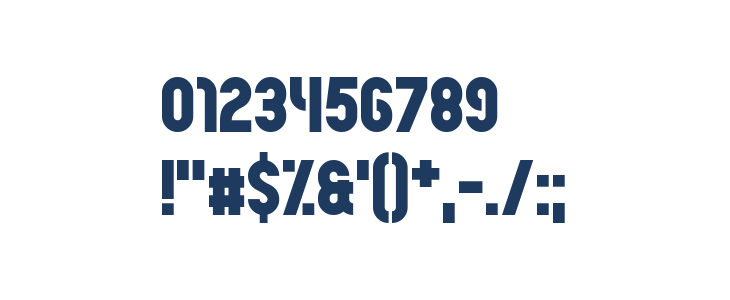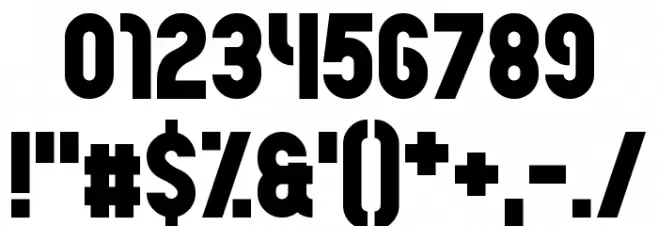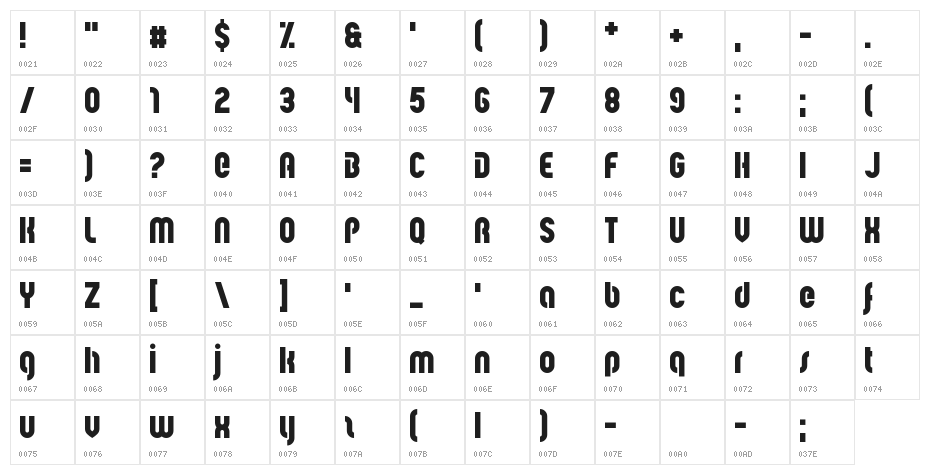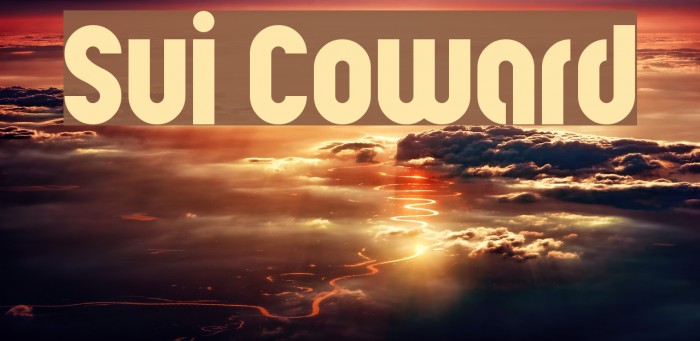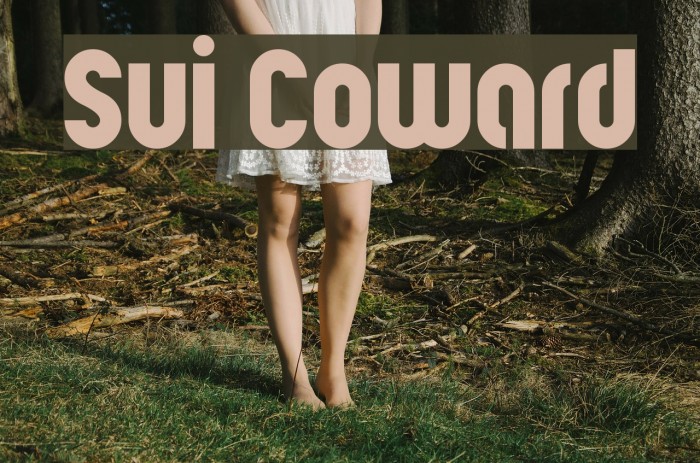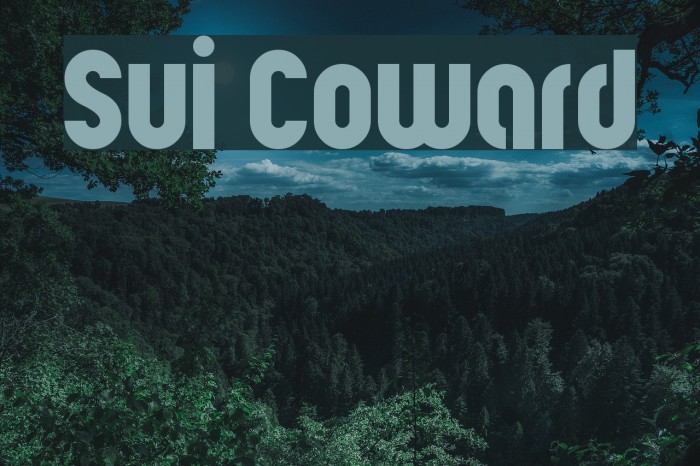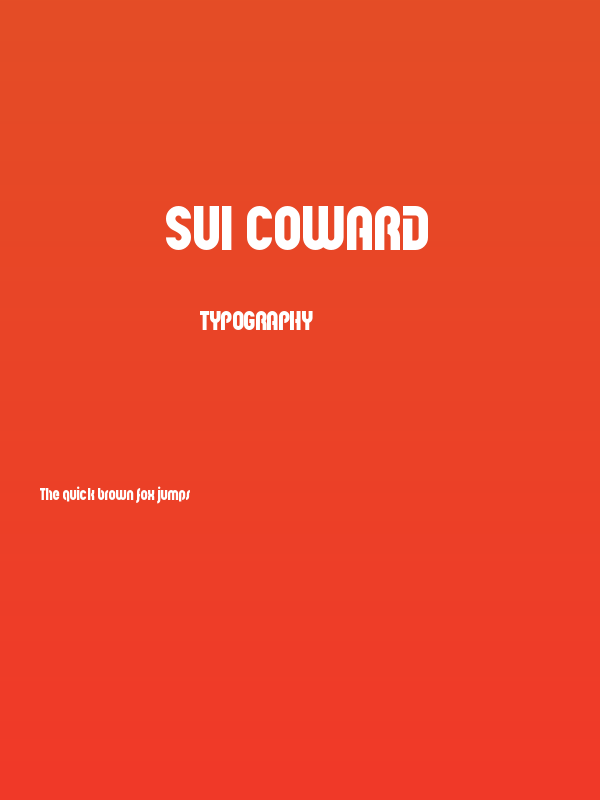
Sui Coward Font
Sui Coward Description
This bold and striking font features a geometric and modern design with a strong presence. The characters are crafted with a uniform thickness, creating a cohesive and impactful look. The uppercase letters are particularly commanding, with rounded edges that soften the overall appearance while maintaining a sense of strength. The lowercase letters mirror this style, providing a consistent aesthetic throughout. Numbers and special characters are designed to match the boldness of the alphabet, ensuring versatility across various applications. The font's unique style makes it suitable for projects that require a contemporary and assertive typeface.
| Proposed Projects | Ideal for branding, posters, headlines, and any design requiring a strong visual impact. |